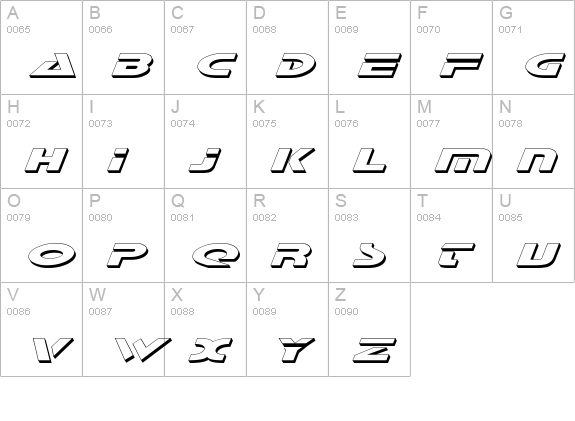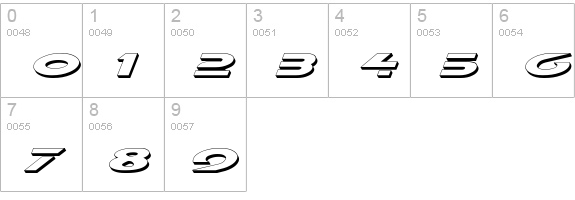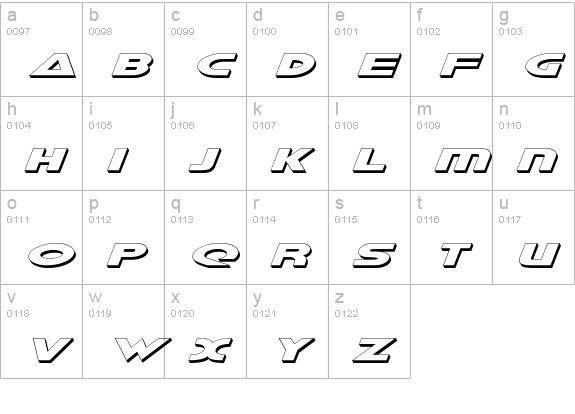
Galant Shadow Italic is a distinctive, italic variant in the Galant typeface family \xE2\x80\x94 well suited to design and typography projects.
Introducing Galant Shadow Italic, a captivating and sophisticated font that exudes an aura of elegance and charm. This exquisite typeface effortlessly combines the boldness of a shadow effect with the graceful slant of italic letterforms, resulting in a truly unique and visually striking design. Galant Shadow Italic is perfect for adding a touch of refinement to any project, be it a logo, branding materials, invitations, or editorial layouts. Its distinct and alluring features make it stand out from the crowd, ensuring that your message is conveyed with utmost style and sophistication. What's even more remarkable is that Galant Shadow Italic is not only a stunning font, but it is also free for download at FontsMarket.com. Yes, you read that right – this exceptional typeface can be yours without spending a dime. FontsMarket.com is your go-to destination for high-quality fonts, and Galant Shadow Italic is just one of the many treasures waiting to be discovered. Whether you are a professional designer or a casual enthusiast, Galant Shadow Italic will undoubtedly elevate your creative endeavors to new heights. Its versatility and visual appeal are sure to captivate your audience, leaving a lasting impression. So why wait? Embrace the beauty and grace of Galant Shadow Italic and let your creativity soar. Download this remarkable font for free at FontsMarket.com and unlock a world of endless possibilities.